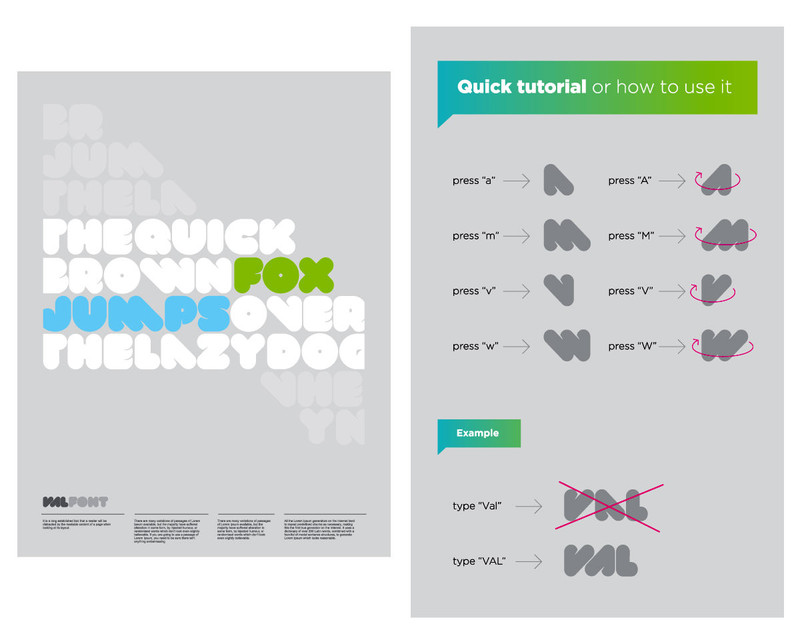
Description: VAL font is applicable for any type of graphic design – web, print, motion graphics etc and perfect for t-shirts and other items like logos, pictograms.